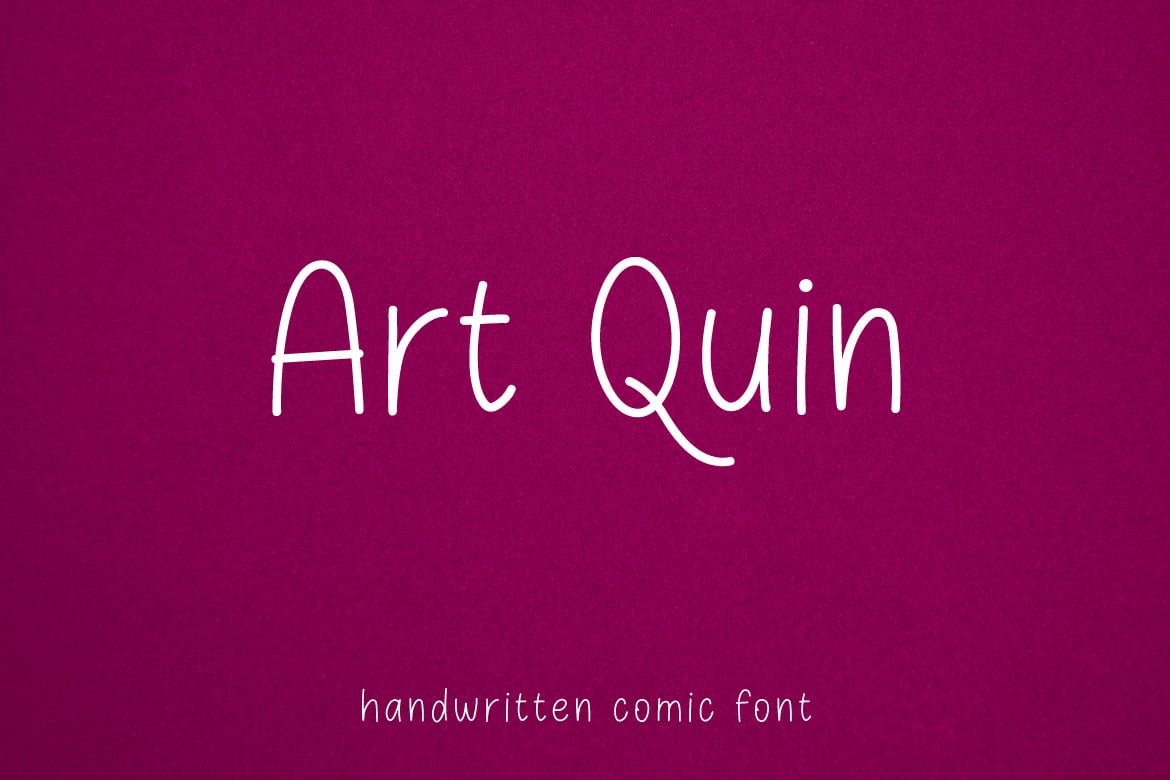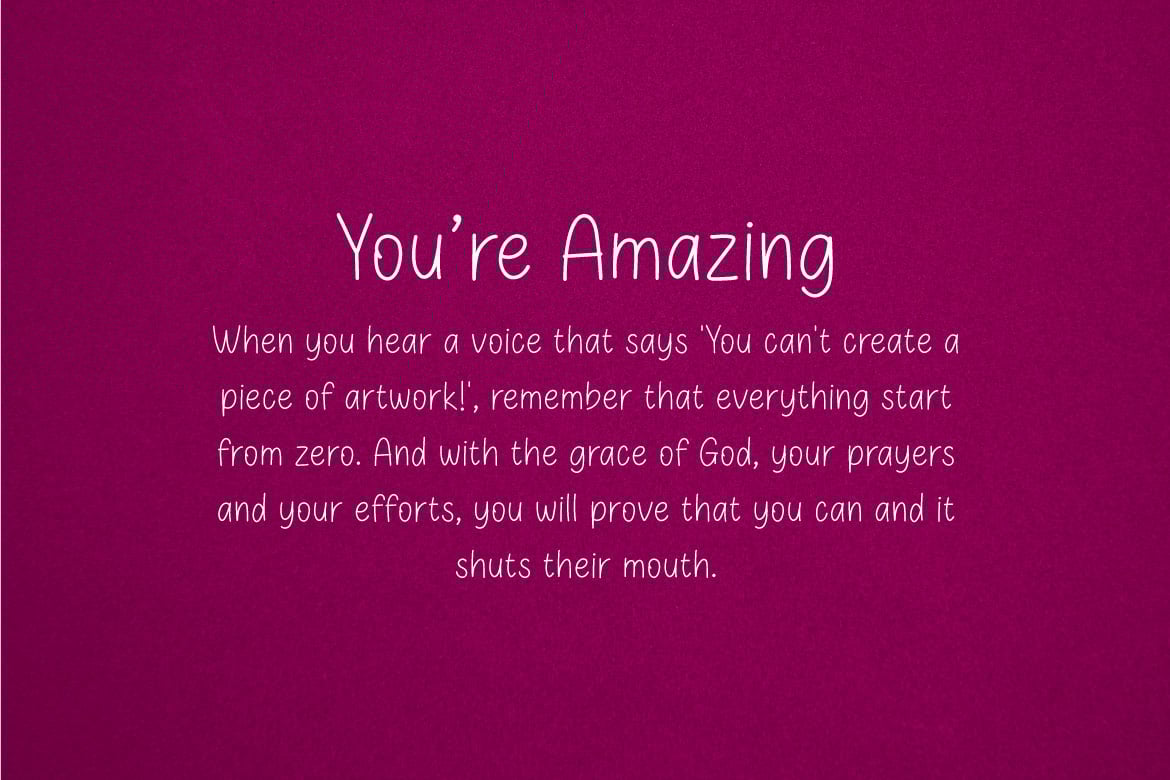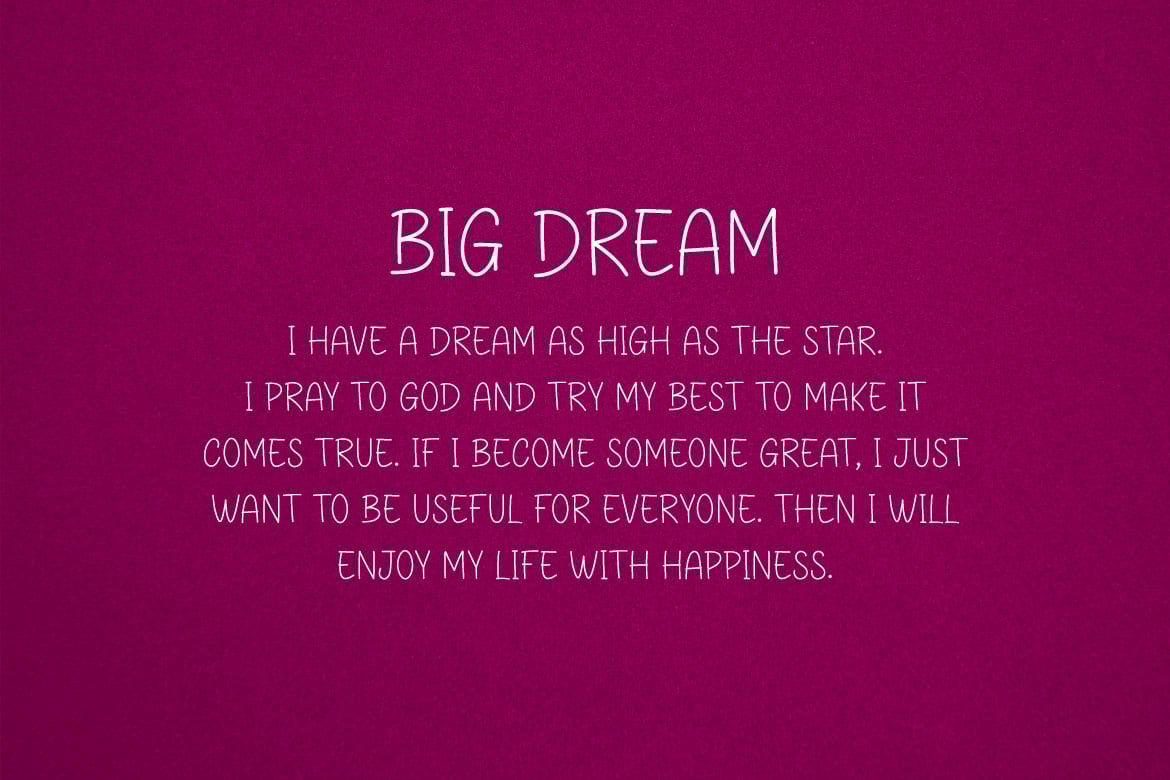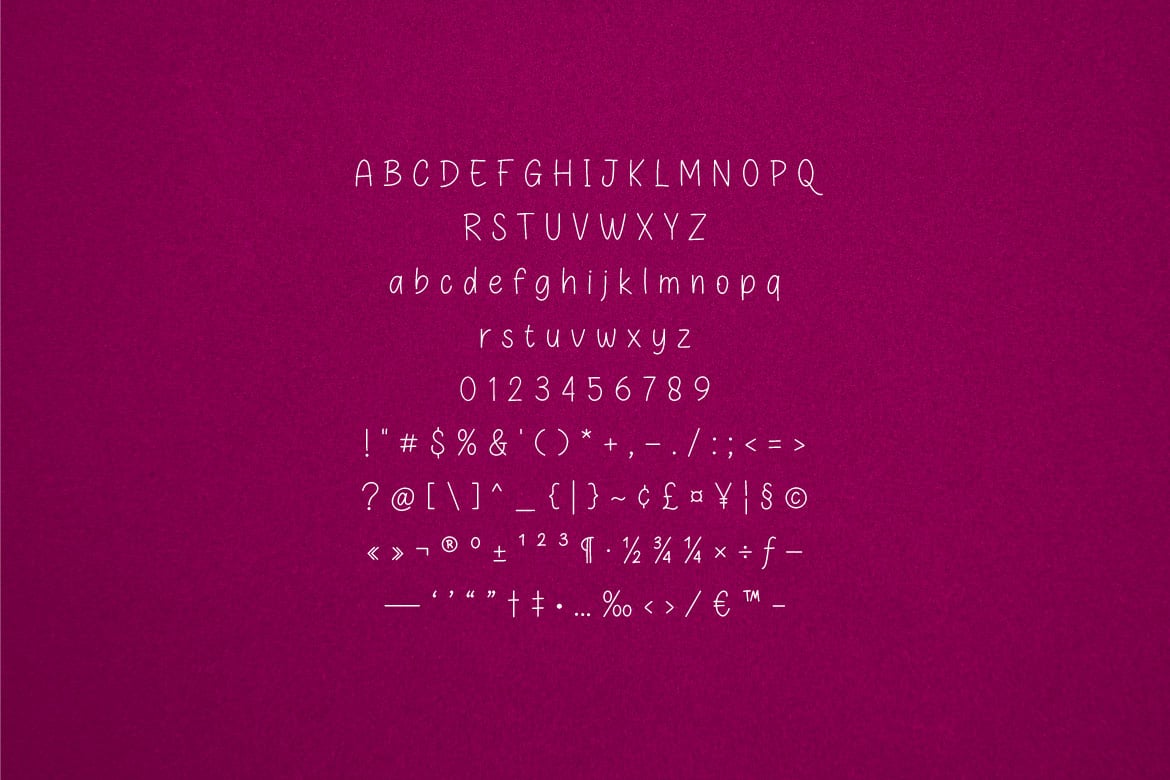
Art Quin – Thin Handwritten Lettering Font
Hello! Art Quin is a thin handwritten font with all thin alphabet style.
Art Quin can be used in any works such as flyer, book title, advertisement, social media content, logo and many more.